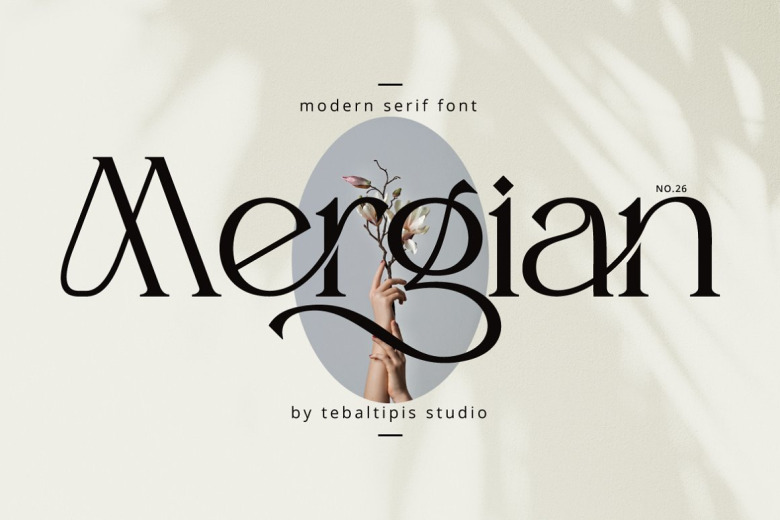
Mergian Font
Mergian Serif Font is a comely styled serif font with beatiful ligatures, lots of custom alternative glyphs, and multilingual support.
this is a very versatile font that works well in large and small sizes. Created for poster, web design, branding, illustrations, badges and some other works.
Mergian Serif Font